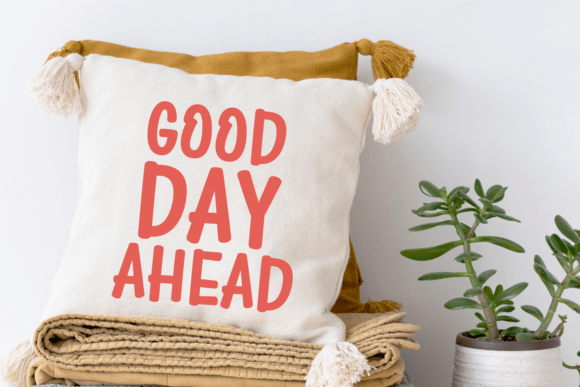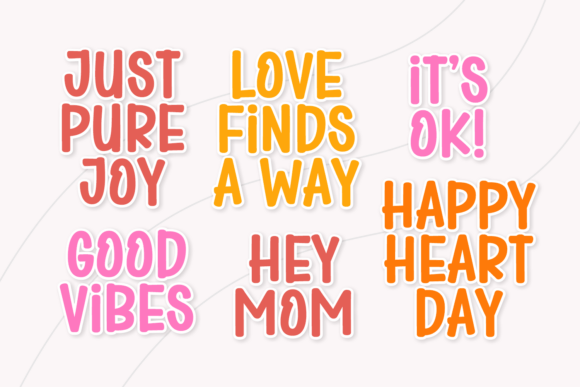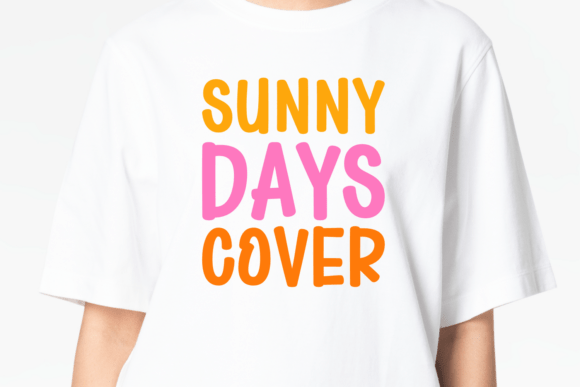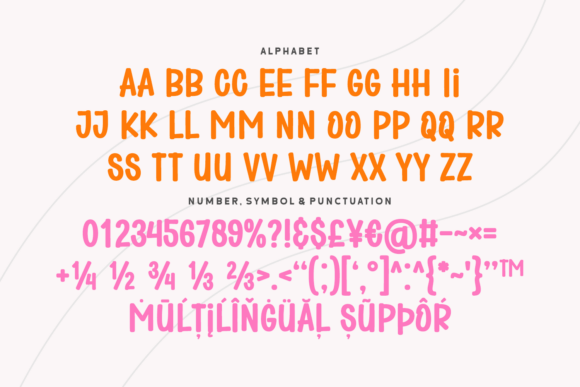
Experience the Charm of Bright Holiday Font: A Whimsical Display Typeface
Are you looking for a font that can add a touch of magic to your designs? Look no further than Bright Holiday, a whimsical display typeface that infuses a gentle, captivating charm into any design endeavor. This delightful font is perfect for designers and crafters who want to create visually appealing and engaging content for various projects, from Valentine’s Day designs to children’s party invitations.
The Unique Characteristics of Bright Holiday Font
Bright Holiday font is a true reflection of its name, shaping designs as exquisite and enjoyable as a bite of your most cherished delicacy. The font’s design is reminiscent of the irresistible harmony of honey meeting butter, marrying the snugness of well-rounded corners with the energetic cadence of a spirited springiness. This unique blend of characteristics makes Bright Holiday a standout font that can add a soulful touch and dynamic tone to any design.
Perfect for Valentine’s Day Designs
Bright Holiday font is an absolute delight for Valentine’s Day designs, lending amorous cards and love letters an embracing, honest ambiance. The font’s gentle and captivating charm makes it perfect for creating romantic and sentimental designs that will leave a lasting impression. Whether you’re designing a Valentine’s Day card, a love letter, or a romantic poster, Bright Holiday font is sure to add a touch of magic to your project.
A Prime Pick for Children’s Party Invitations and Educational Handouts
Bright Holiday font’s simplicity is not to be mistaken for mundanity. Despite its legibility, the font preserves its entertaining allure, establishing itself as a prime pick for jovial children’s party invitations or lively educational handouts. The font’s playful and whimsical design makes it perfect for creating engaging and fun content for kids. Whether you’re designing a children’s party invitation, a educational worksheet, or a kids’ book, Bright Holiday font is sure to delight your audience.
A Visual Treat for Children’s Books and Nursery Wall Art
Bright Holiday font is a visual treat within the pages of children’s books and a welcoming, playful wall art option for nurseries. The font’s gentle and captivating charm makes it perfect for creating engaging and interactive content for kids. Whether you’re designing a children’s book, a nursery wall art, or a kids’ educational resource, Bright Holiday font is sure to add a touch of magic to your project.
More than Just a Font
Bright Holiday font is more than just a font – it’s a warm and inviting design element that can add a touch of personality to any project. The font’s unique characteristics and playful design make it perfect for designers and crafters who want to create visually appealing and engaging content. Whether you’re designing a Valentine’s Day card, a children’s party invitation, or a kids’ book, Bright Holiday font is sure to delight your audience.
Tips for Using Bright Holiday Font
Here are some tips for using Bright Holiday font in your designs:
- Use Bright Holiday font for headlines and titles to add a touch of magic to your design.
- Pair Bright Holiday font with other fonts to create a unique and visually appealing design.
- Use Bright Holiday font for children’s party invitations and educational handouts to add a playful and whimsical touch.
| Font Name | Bright Holiday Font |
| Author | Riman (7NTypes) |
In conclusion, Bright Holiday font is a whimsical display typeface that infuses a gentle, captivating charm into any design endeavor. With its unique characteristics, playful design, and versatility, Bright Holiday font is perfect for designers and crafters who want to create visually appealing and engaging content for various projects. Whether you’re designing a Valentine’s Day card, a children’s party invitation, or a kids’ book, Bright Holiday font is sure to delight your audience.